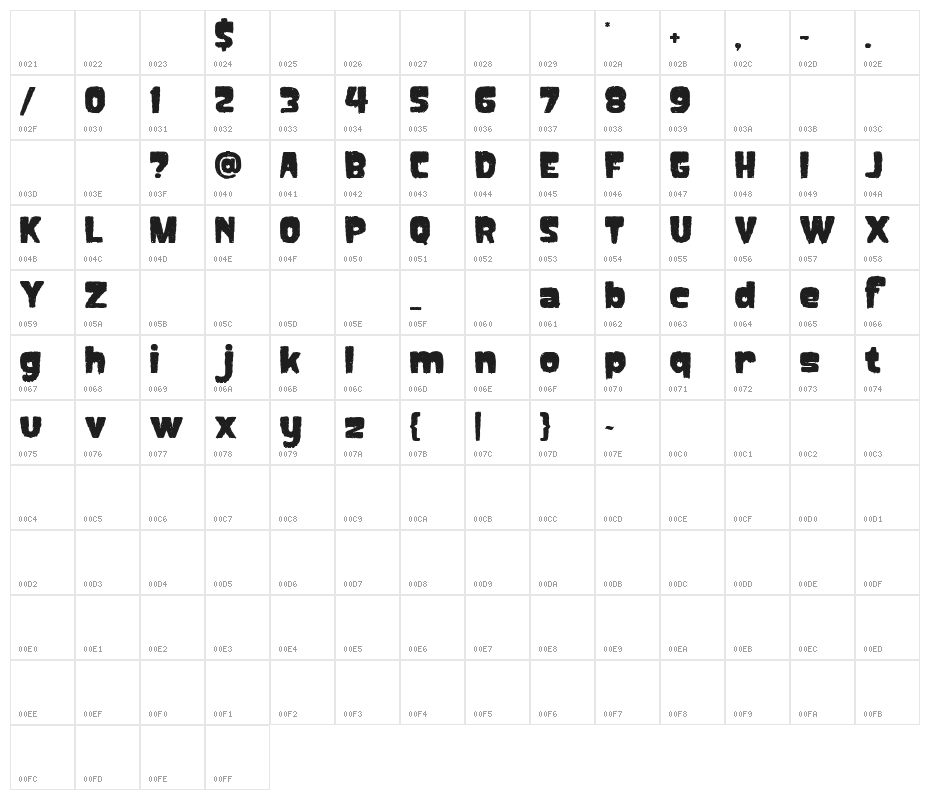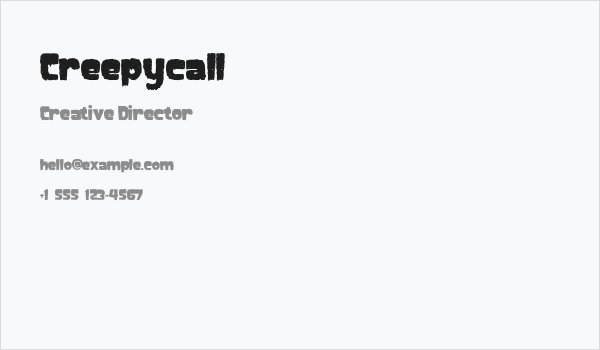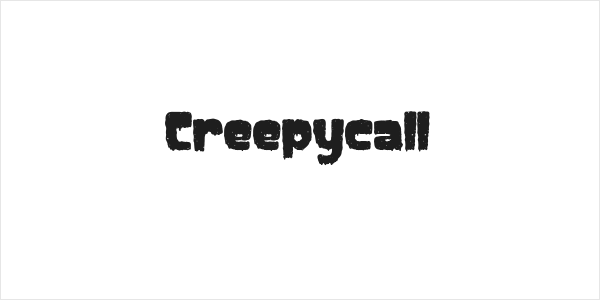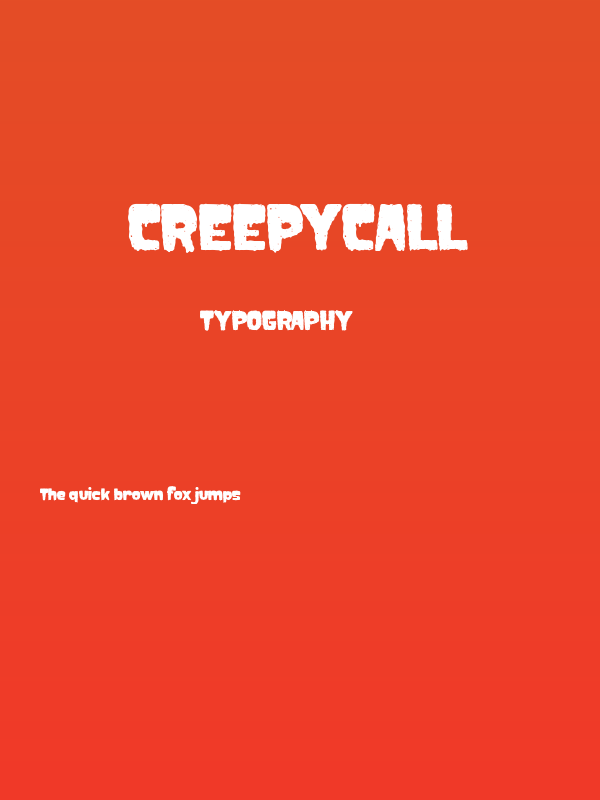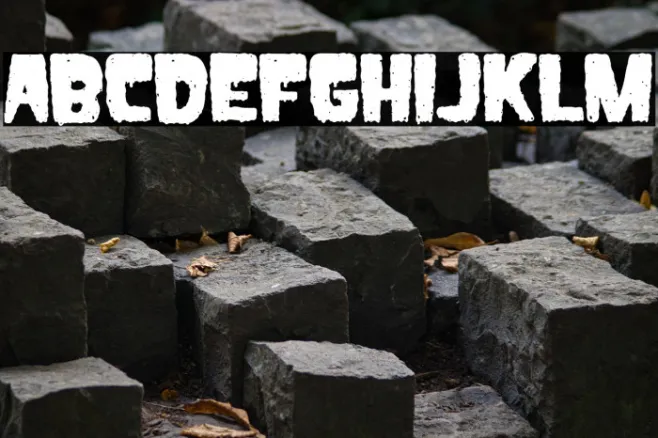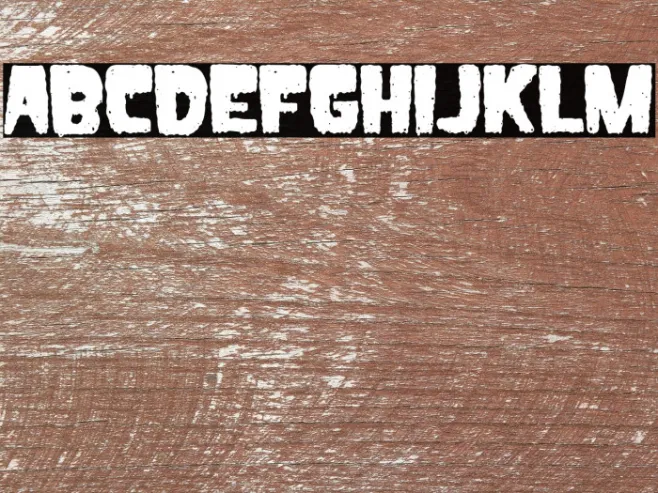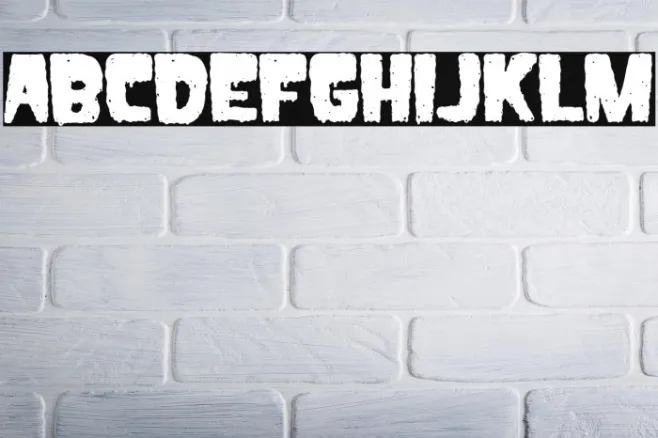
Creepycall Font
Creepycall Description
This font features a bold and rugged design with a distressed texture that gives it a worn and eerie appearance. The characters are thick and substantial, with irregular edges that create a sense of unease and mystery. The uppercase and lowercase letters maintain a consistent style, while the numbers and special characters complement the overall theme. This font is ideal for projects that require a spooky or horror-themed aesthetic, such as Halloween posters, haunted house flyers, or mystery book covers. Its unique style makes it stand out, capturing attention with its bold and unsettling look.
| Proposed Projects | Halloween posters, haunted house flyers, mystery book covers. |